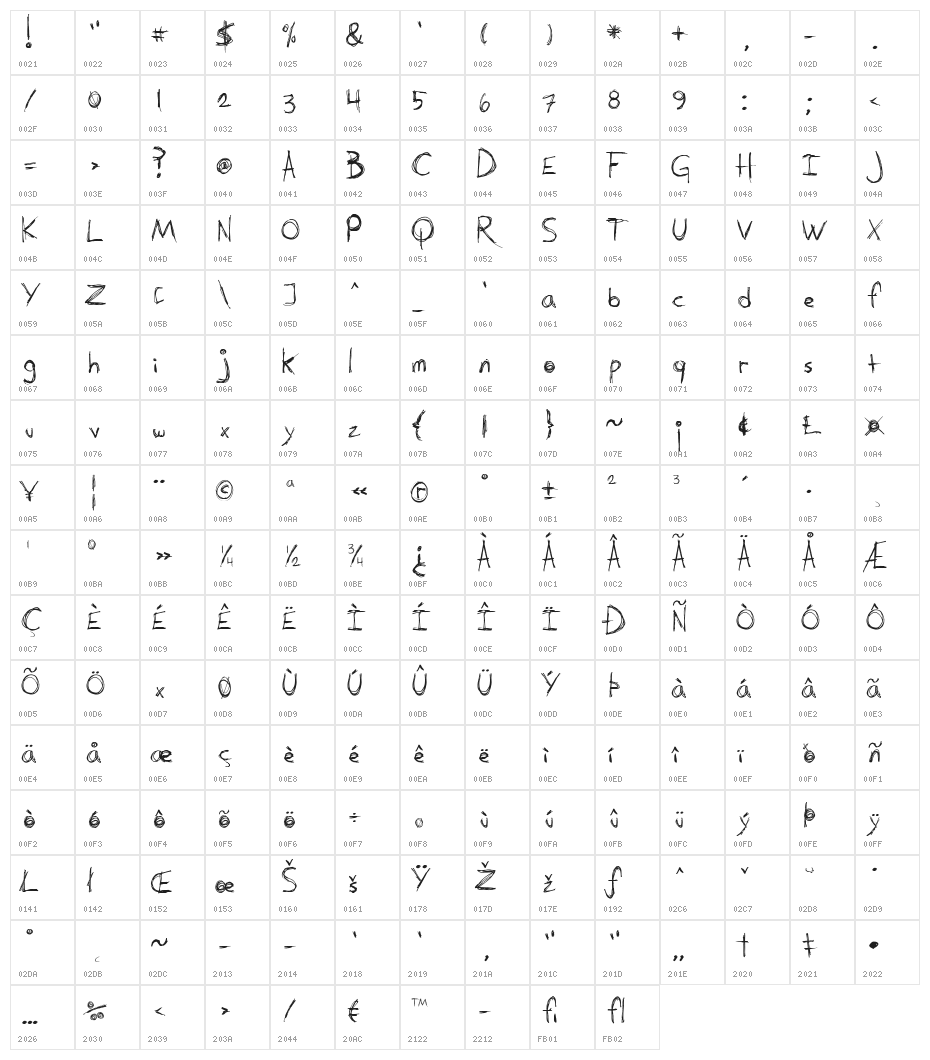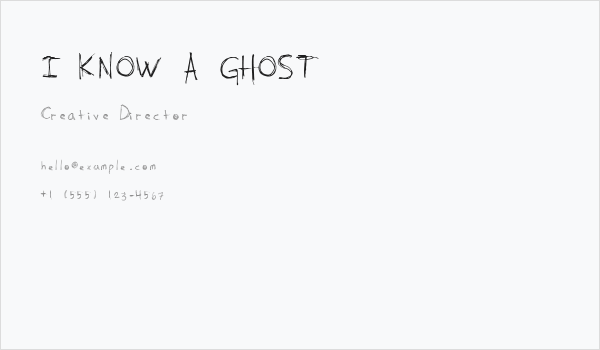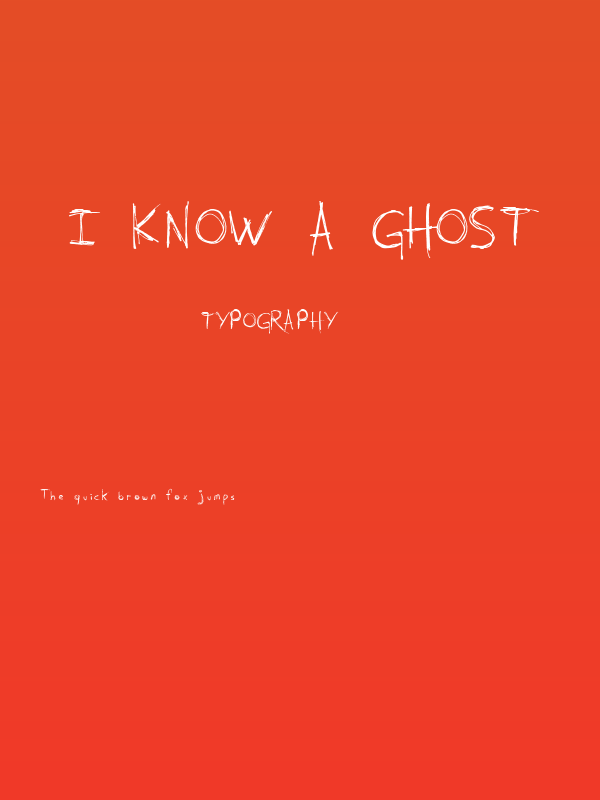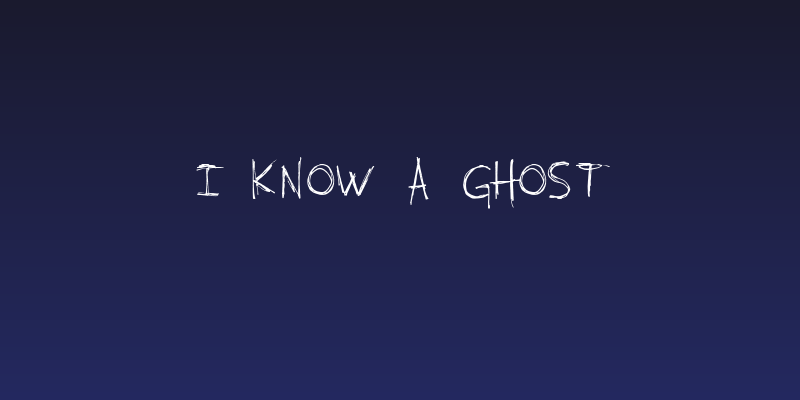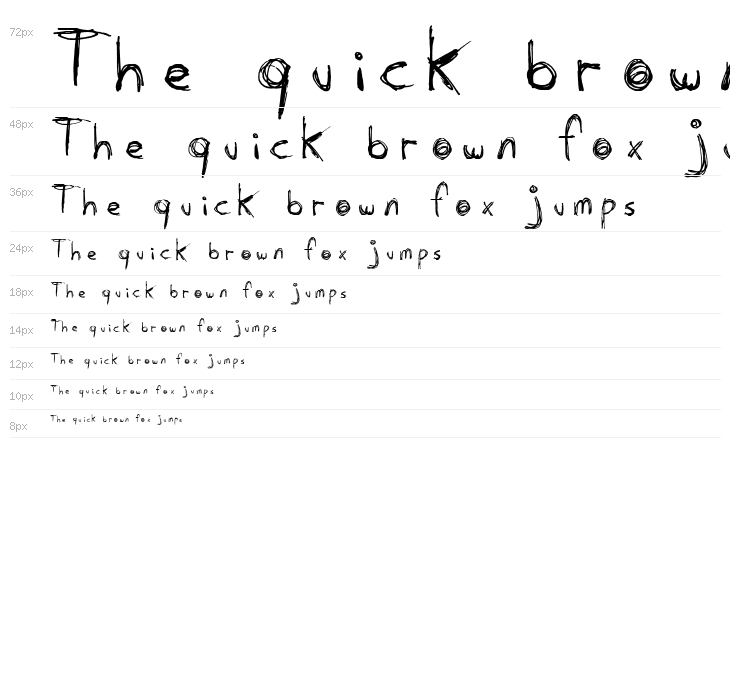
I KNOW A GHOST Font
I KNOW A GHOST Description
This font exudes a raw, hand-drawn aesthetic with an edgy and slightly chaotic vibe. The letters are irregular and have a sketch-like quality, giving them a unique, artistic flair. The strokes are uneven, with varying thickness that adds to the font's dynamic and energetic appearance. The characters are slightly tilted and have a playful, whimsical feel, making them stand out in any design. This font is perfect for projects that require a bold and unconventional look, such as album covers, posters, or creative branding. Its distinctive style captures attention and conveys a sense of individuality and creativity.
Proposed ProjectsIdeal for album covers, posters, creative branding, and any project needing a bold, unconventional look.